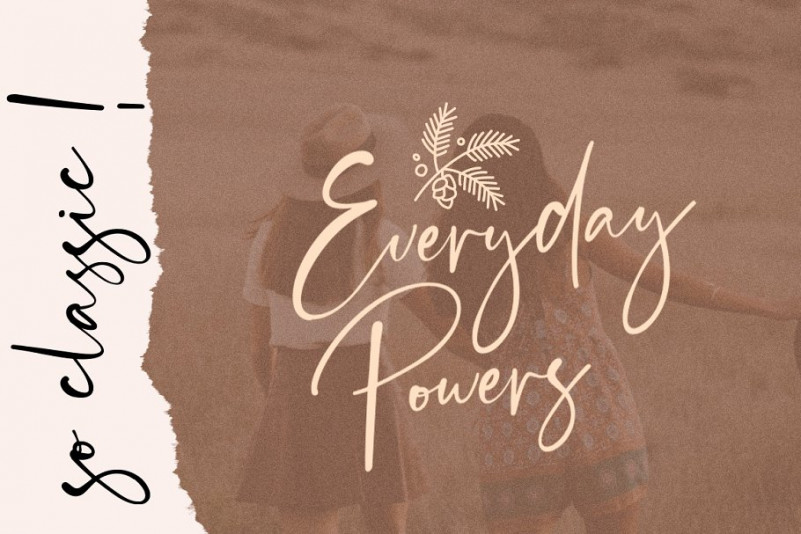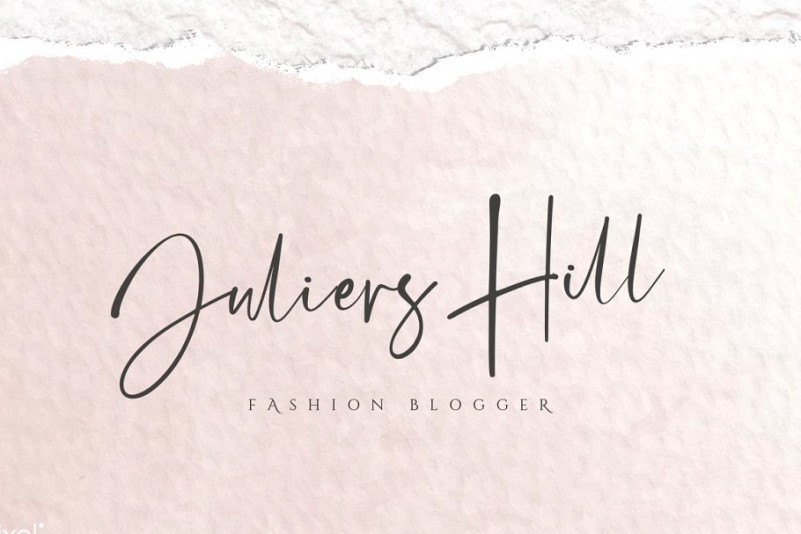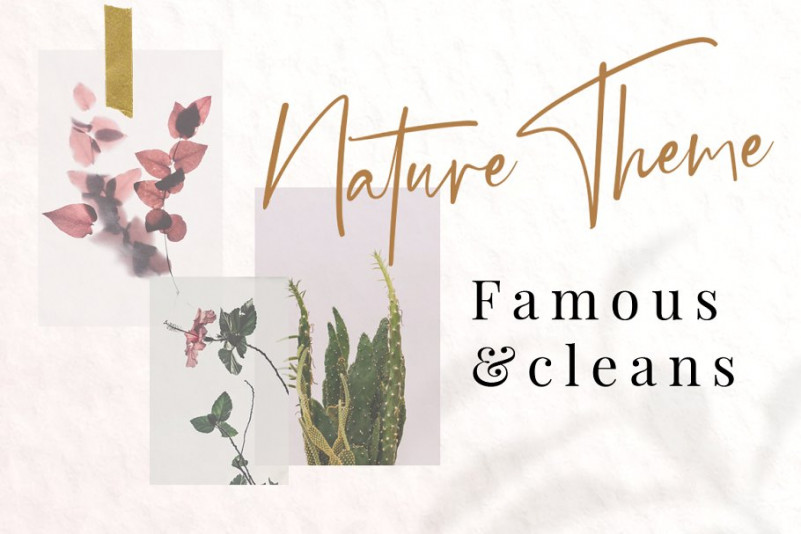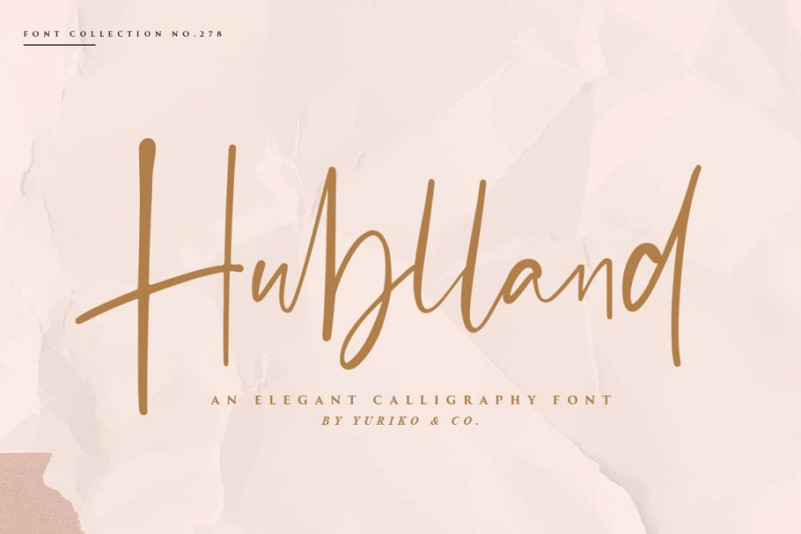
Hublland Script Font
Hublland Script – Demo Font
Introducing Hublland Font. A new modern & fresh script with a handwritten and signature style make this font looks elegant, natural, stylish and perfect for any awesome projects that need handwriting taste. It is design and shared by Yuriko & Co.. It’s modern script font with perfect flow and natural handwriting. It is perfect for branding, wedding invites and cards, and maybe for red wine label. It easily cooperating together For Magazine, Movies, or Book Titles. For Photography, Wedding Invitation, Restaurant Menu or T-shirt Design. wedding font, romantic font, romance font, modern signature font, For Flyers, Banner Ads, web and printing. From Food and Fashion to a Cosmetics product.